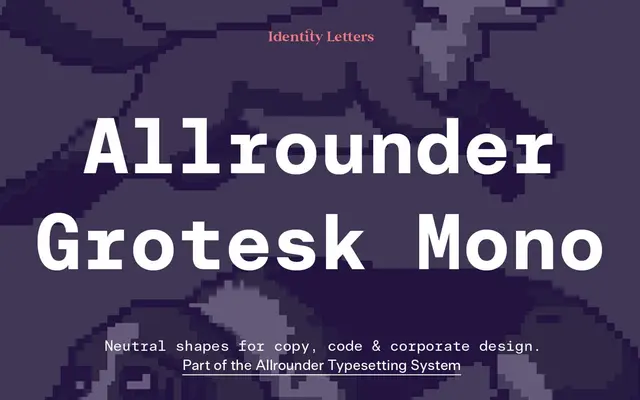
Allrounder Grotesk Mono
Identity Letters · Johannes López Ayala
A fixed-width grotesque in five weights, designed to share vertical metrics and texture with the broader Allrounder superfamily for clean cross-family pairing.
Built on the neutral modernist shapes of Allrounder Grotesk, this monospaced companion avoids typewriter nostalgia and sci-fi associations in equal measure. Five weights from Light to Bold cover 580+ glyphs per font, with support for over 200 Latin-based languages via the Underware LatinPlus glyph set. OpenType features include fractions, superiors, boxed and circled arrows, and localised forms, making it viable across editorial, code, branding and correspondence work.
A fixed-pitch typeface built on the neutral modernist letterforms of the Allrounder Grotesk family, placing it squarely in the grotesque mono category rather than typewriter or technical mono traditions.